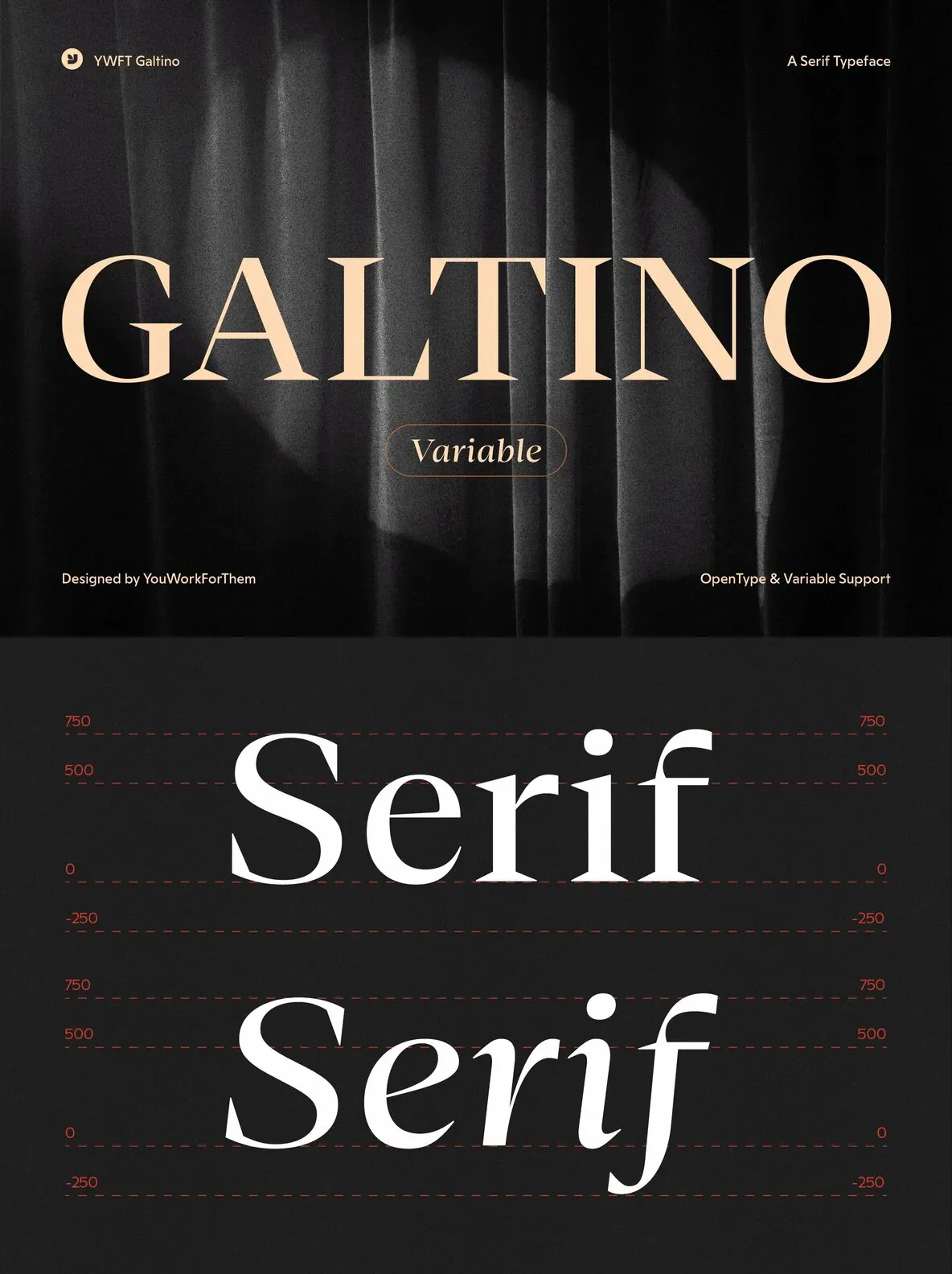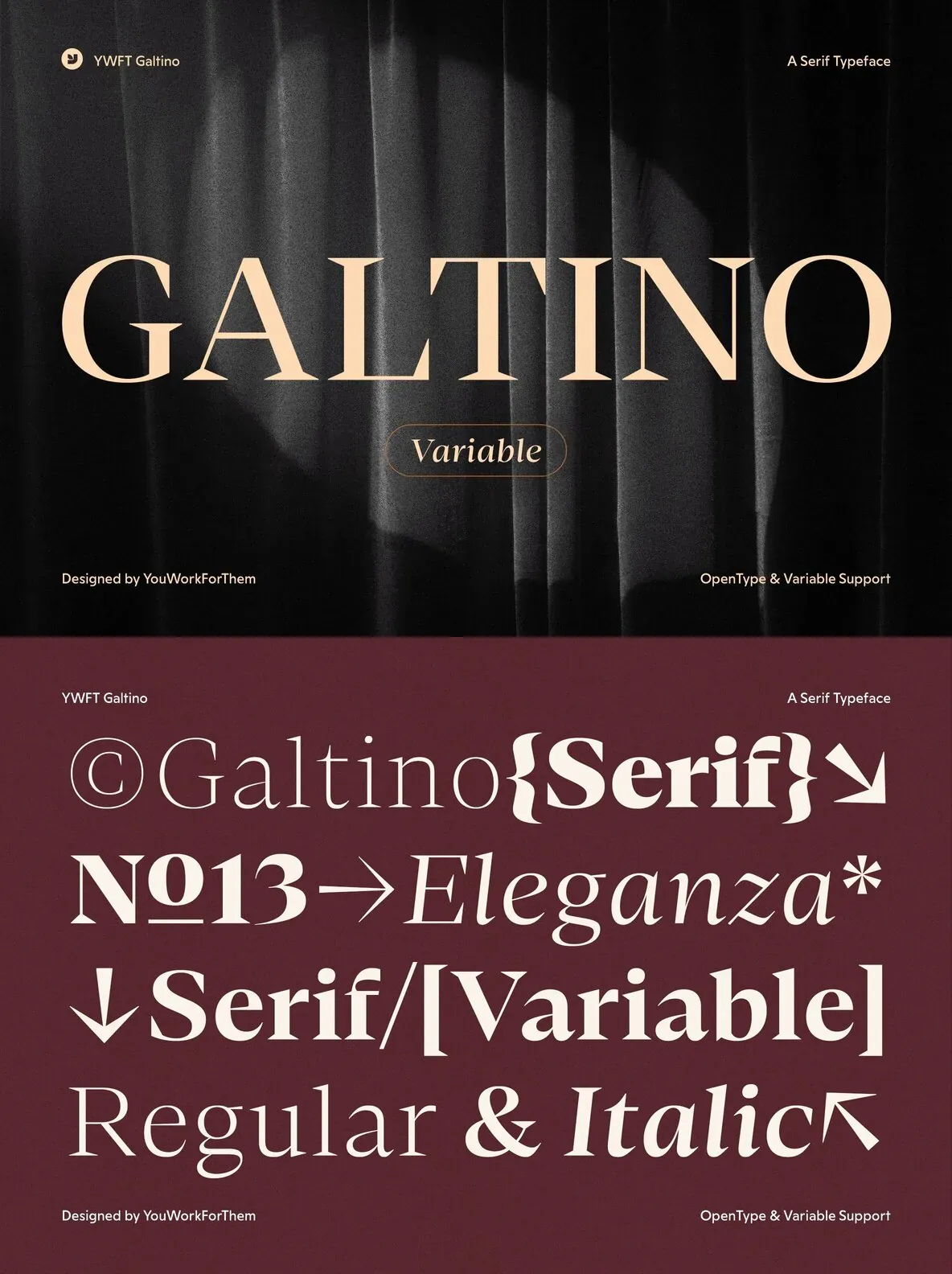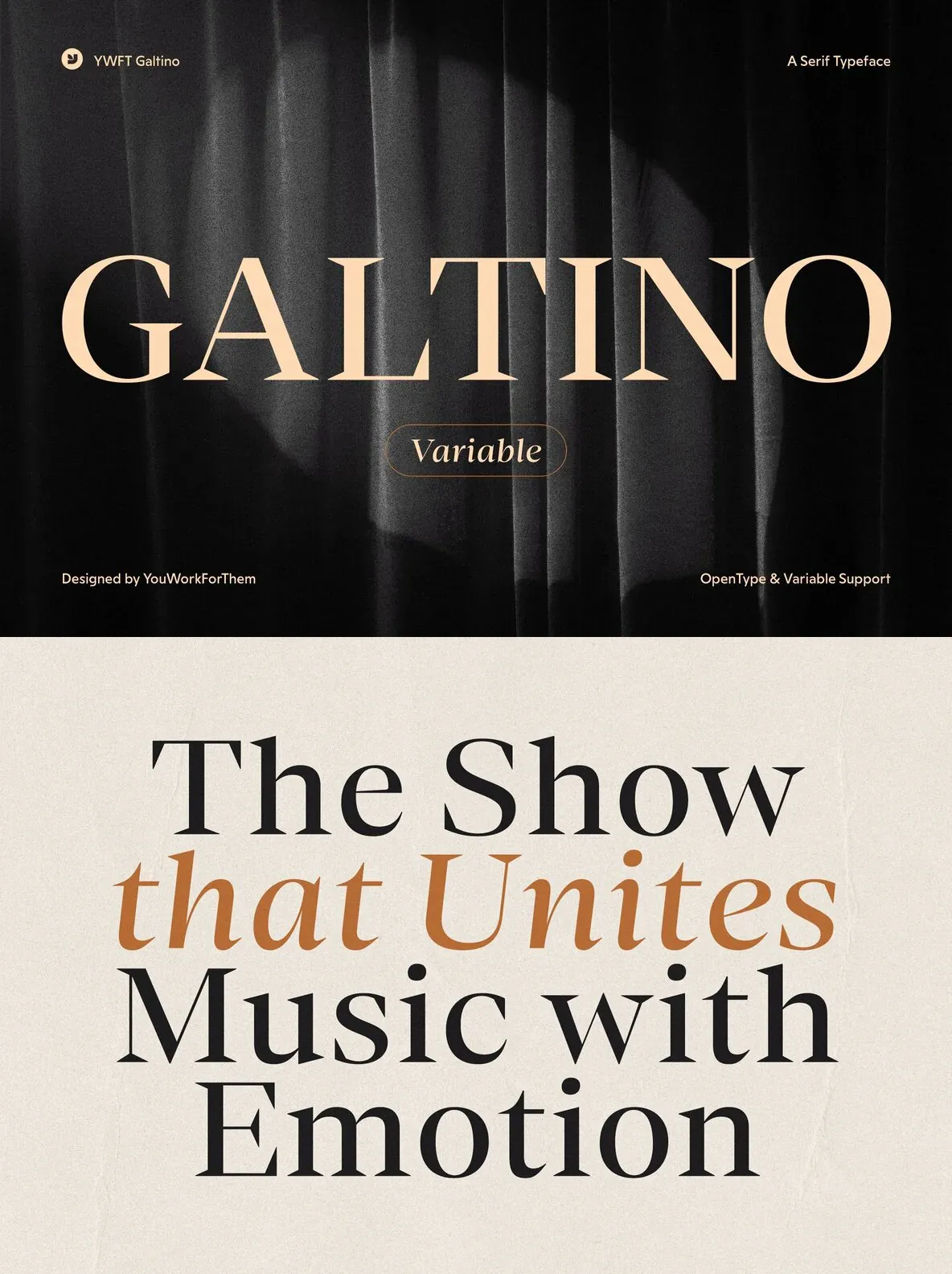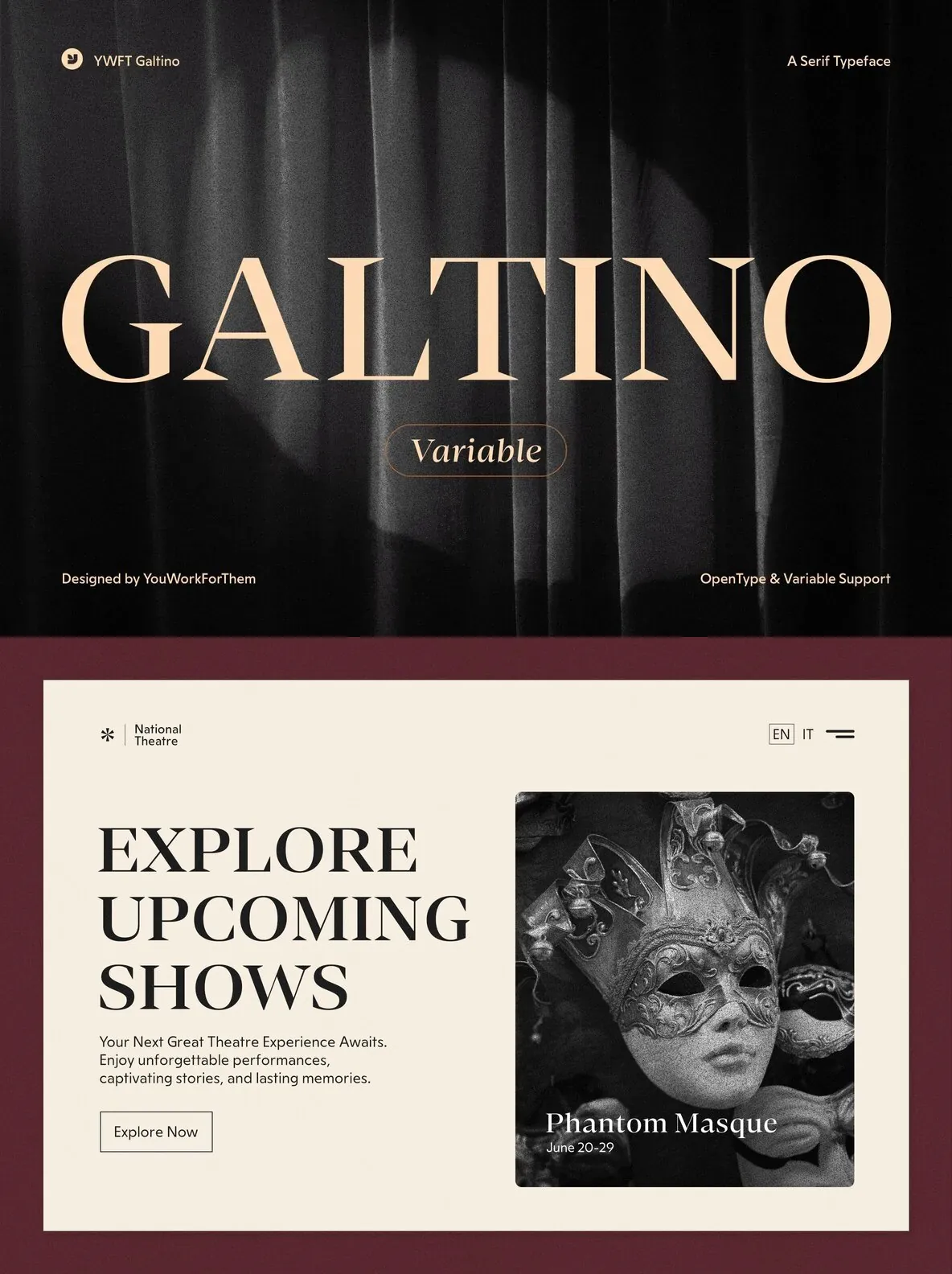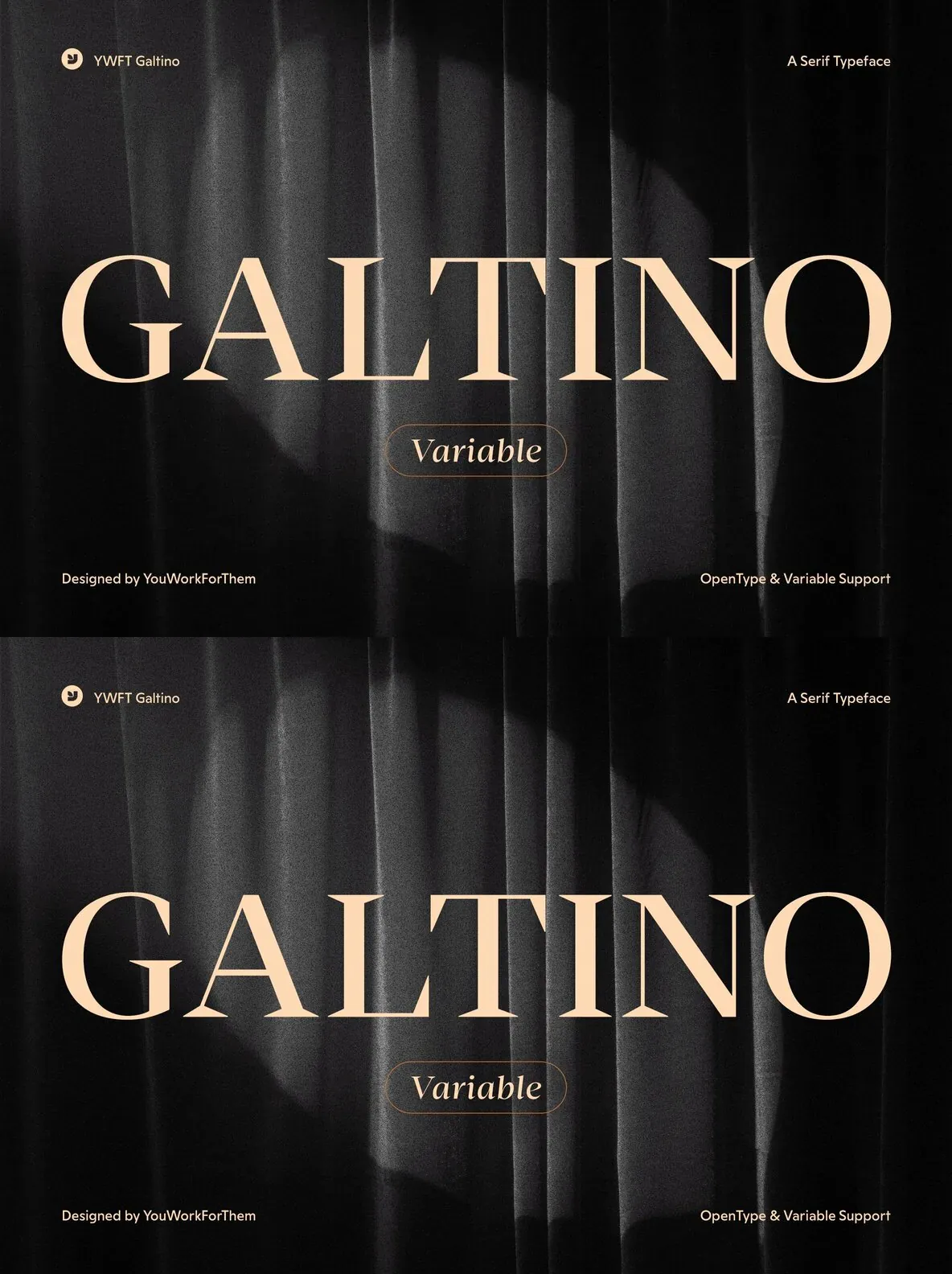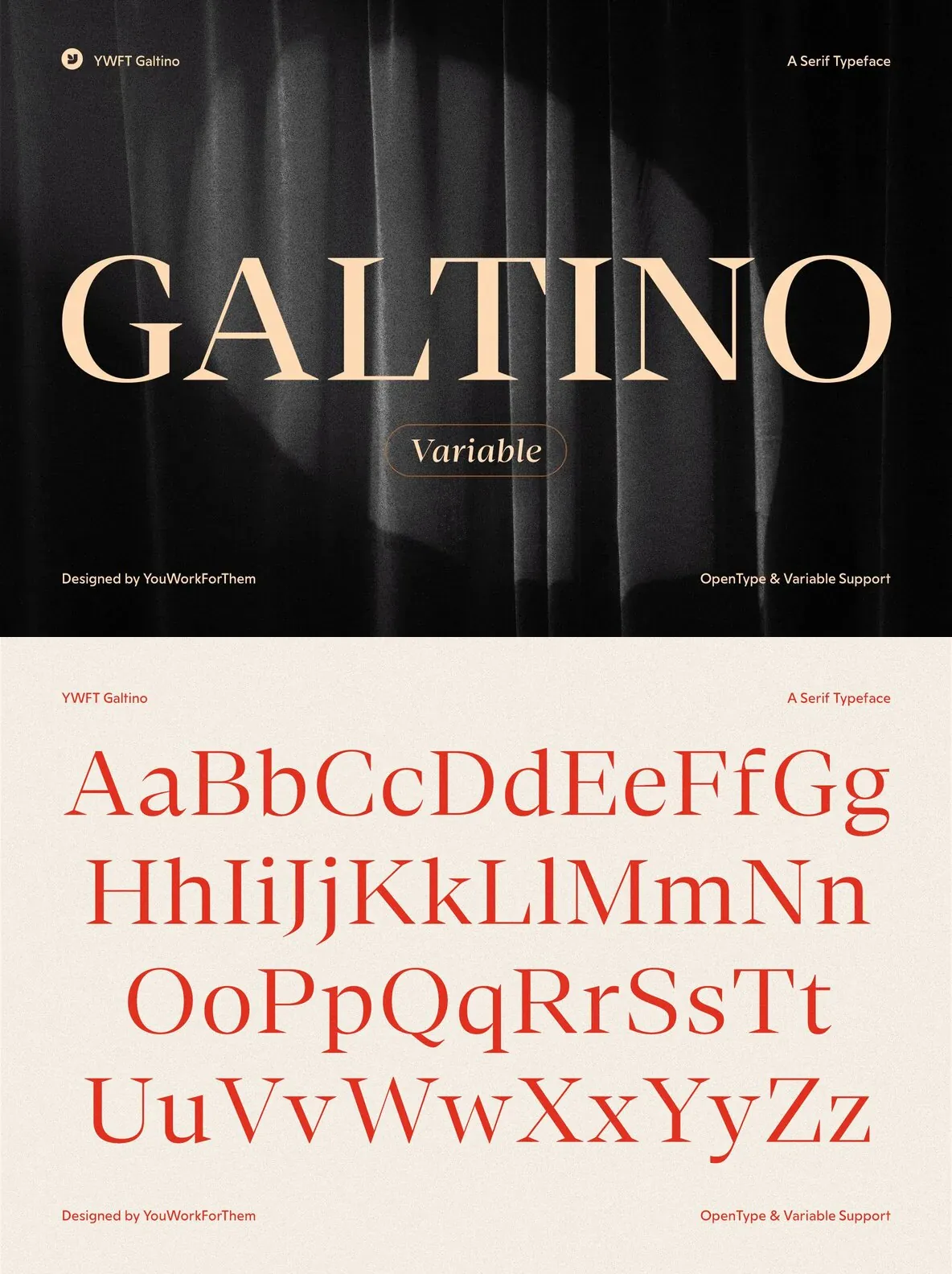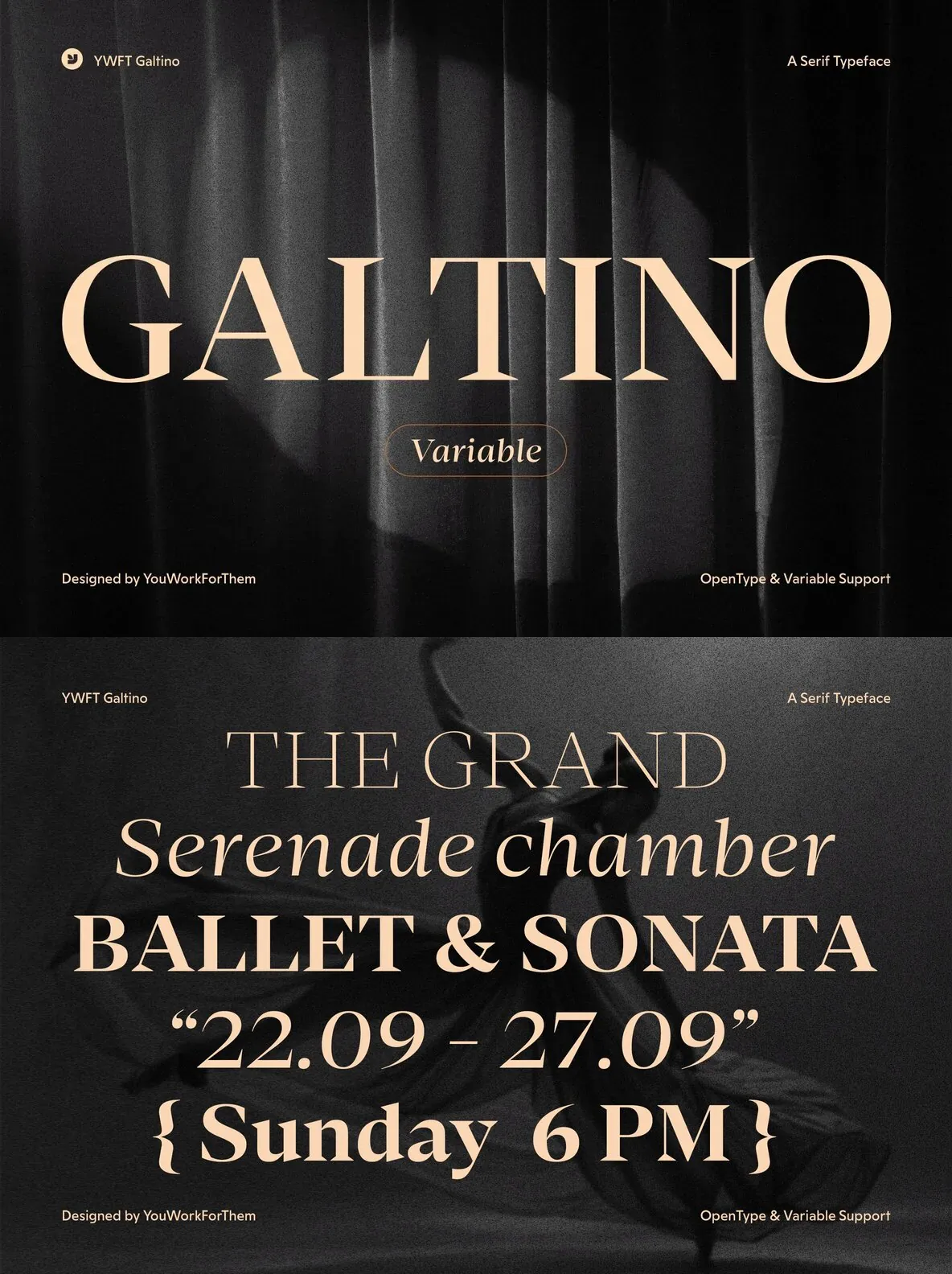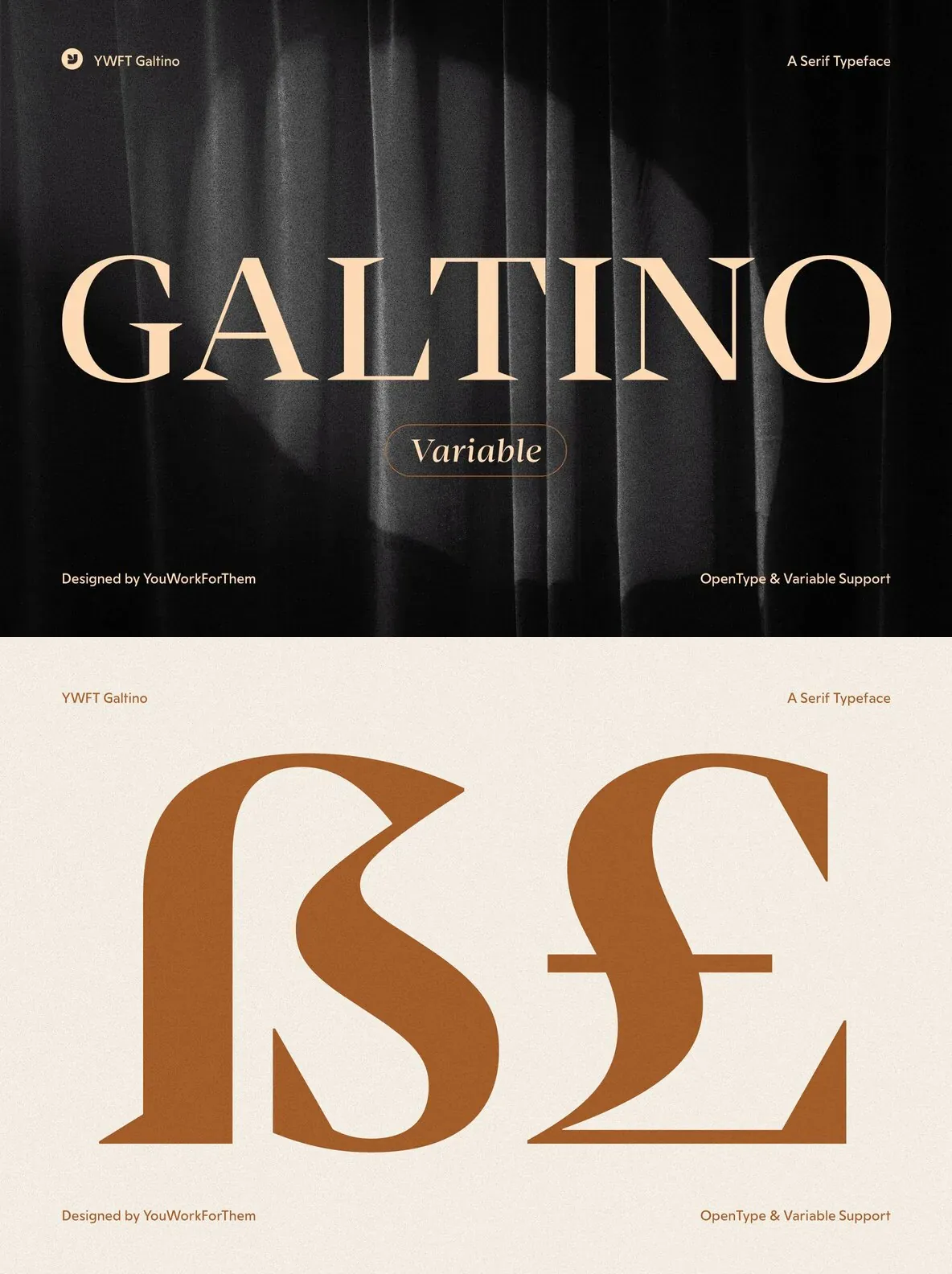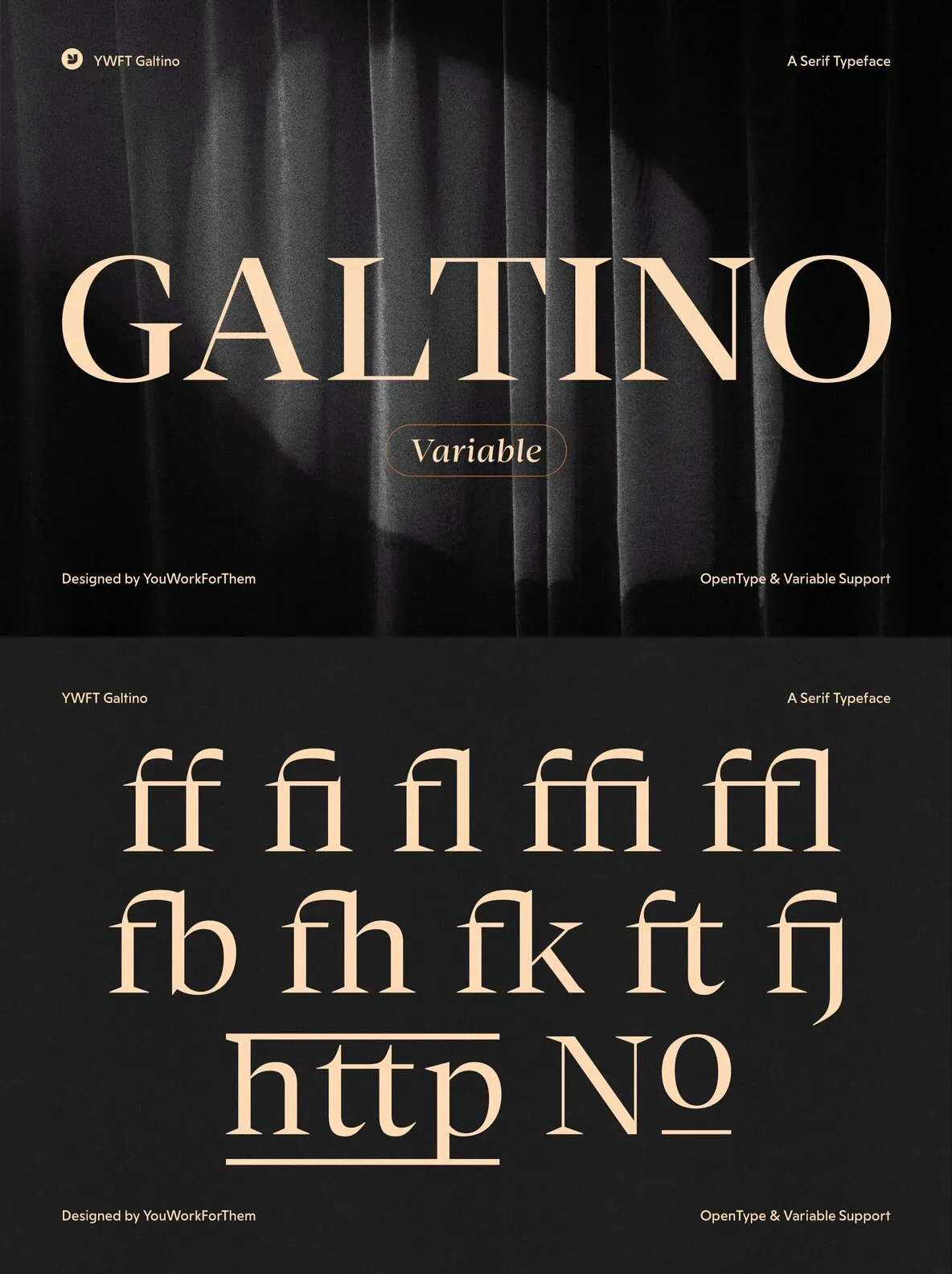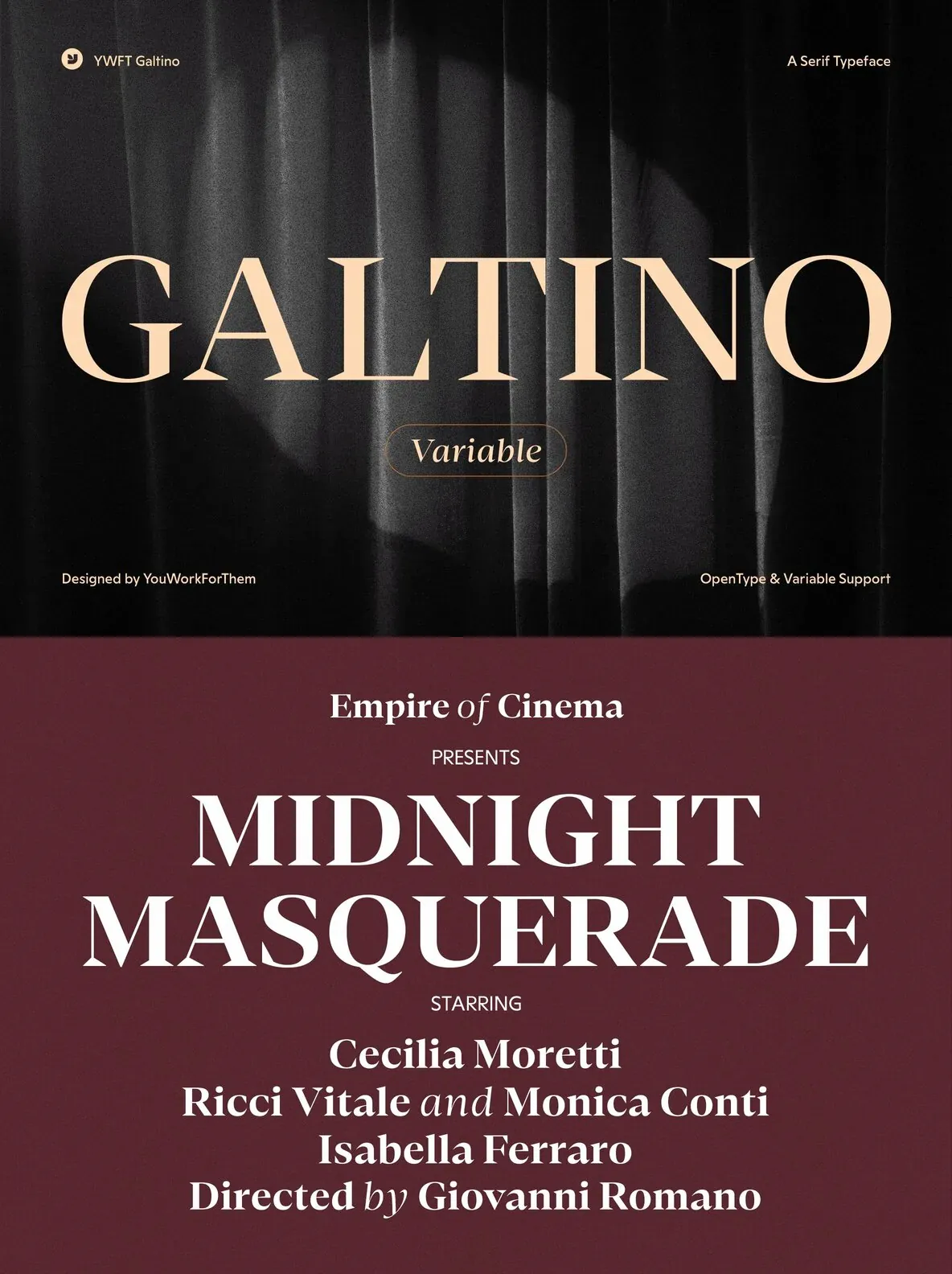
YWFT Galtino is a modern serif typeface inspired by the timeless sophistication of Didone fonts like
Bodoni
and Didot, while subtly echoing the elegance of transitional classics such as
Times New Roman
and
Garamond
. Its high-contrast letterforms, sharp serifs, and refined details make it a perfect choice for luxury branding, formal editorial layouts, and premium design projects.
Crafted exclusively by YouWorkForThem, this typeface is meticulously designed to offer both aesthetic beauty and unparalleled functionality, making it a versatile addition to any designer’s toolkit.
Key Features
YWFT Galtino is packed with features to provide unmatched flexibility and creative possibilities:
OpenType Features
: Includes Access All Alternates, Discretionary Ligatures, Case-Sensitive Forms, Standard and Historical Ligatures, Fractions, Subscript, Superscript, and more.
Extensive Glyph Set
: Over 500 glyphs per weight, offering advanced typographic options.
Complete Family
: Eight weights (from Light to Bold) with matching italics for maximum versatility.
Language Support
: Supports Basic Latin, Western and Central European, Turkish, Catalan, Pan African Latin, Basic Greek, and many more.
Perfect for a Variety of Applications
The high-contrast strokes and structured elegance of YWFT Galtino make it ideal for projects that demand sophistication:
Luxury Branding
: Create logos and identities that exude prestige and exclusivity.
Editorial Design
: Perfect for magazine layouts, book covers, and fashion spreads.
Event Invitations
: Elevate formal occasions with elegant typography.
Website Design
: Enhance user experiences with classic yet modern web typography.